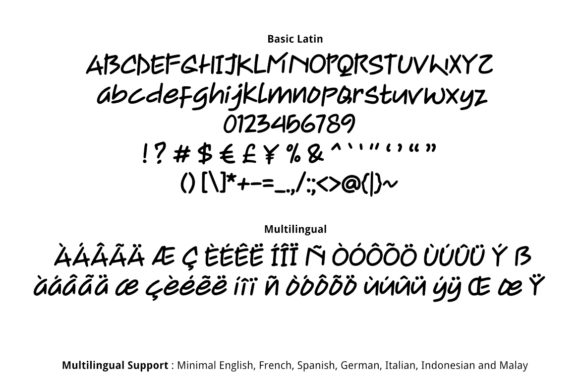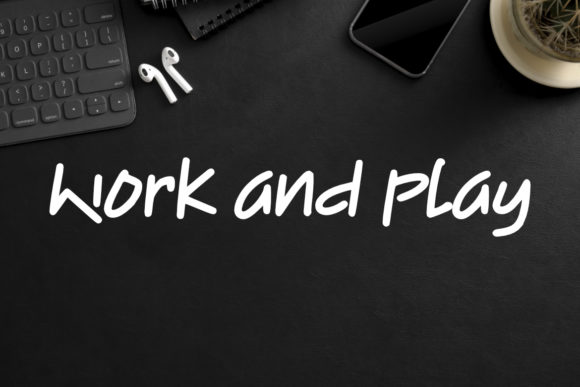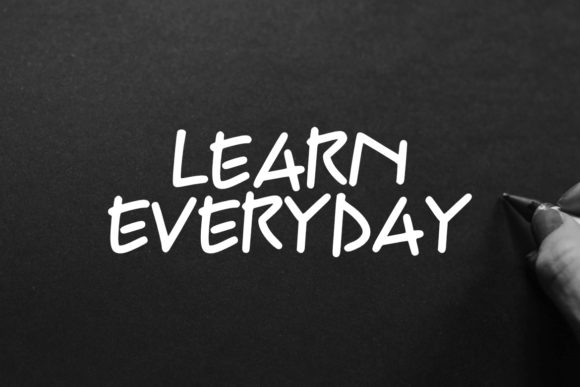
Introduction to Pendulum Font
As a designer, there’s nothing quite like the thrill of stumbling upon the perfect font for a creative project. You’re browsing through a design resource, searching for that one special something to elevate your idea, when suddenly – you see it. The Pendulum Font catches your eye, its thick, handwritten letters radiating a sense of childlike wonder and charm. You can almost imagine it gracing the cover of a children’s book or a whimsical school project.
But what makes the Pendulum Font truly special is its versatility. Whether you’re working on a free download or a high-quality design piece, this font is sure to bring a touch of magic to your work. With its transparent background and lovable aesthetic, it’s the perfect addition to any design project.
Pendulum Font
- Unique blend of modern and vintage elements, ideal for creative projects
- High-quality font with a transparent background, perfect for designers seeking a design resource
- Large character set with over 1000 glyphs, suitable for a wide range of creative applications
- High-resolution design, scalable up to 1024px, ensuring crisp and clear typography
Honest Review: Pendulum Font
I recently stumbled upon the Pendulum Font and was excited to dive in and explore its features. As a designer, I’m always on the lookout for high-quality design resources to elevate my creative projects. Fortunately, Pendulum Font delivers.
Here are some of the things that work well: ✨
- High-quality design: The font is crisp and clean, making it perfect for a variety of design applications.
- Transparent background: The font’s transparent background makes it easy to use in creative projects that require a lot of layering and manipulation.
- Limited character set: While the font is high-quality, it’s not a full character set, which may limit its use in certain design applications.
- Lack of customization options: As a free font, Pendulum Font doesn’t offer a lot of customization options, which may be a drawback for some designers.
Overall, I’m impressed with Pendulum Font and would definitely recommend it to designers looking for a high-quality, free design resource. Just be aware of the limitations, and you’ll be all set to create some amazing designs!
Pendulum Font
The Pendulum Font is a unique and versatile design resource ideal for creative projects. It’s available for free download and features a transparent background, making it perfect for various applications.
Tips for Getting the Most Out of Pendulum Font
– Experiment with different font sizes and styles to create a unique look.
– Combine the Pendulum Font with other design elements for a cohesive design.
– Use the transparent background to add a touch of elegance to your project.
– Wedding invitations
– Event flyers
– Business logos
Pendulum Font Alternatives
The Great Vibes Font is a beautiful, high-quality font ideal for creative projects, especially those that require a carefree and laid-back vibe. It’s perfect for use in headings and titles to add a touch of elegance and sophistication. When to use: Creative project, design resource, and high-quality font needed. How it compares to Pendulum Font: Great Vibes Font has a more elegant and refined look compared to the bold and playful Pendulum Font.
The Dancing Script Font is a lovely, handwritten font that’s perfect for use in invitations, greeting cards, and other creative projects that require a personal touch. It has a transparent background, making it ideal for use on a white or light-colored background. When to use: Design resource for personal projects, free download needed, and a high-quality font with a transparent background required. How it compares to Pendulum Font: Dancing Script Font has a more delicate and feminine look compared to the bold and playful Pendulum Font.
The Alex Brush Font is a high-quality, elegant font that’s perfect for use in headings, titles, and other design elements that require a touch of sophistication. It’s a great alternative to Pendulum Font for those who need a more refined and polished look. When to use: Creative project, design resource, and high-quality font needed. How it compares to Pendulum Font: Alex Brush Font has a more refined and elegant look compared to the bold and playful Pendulum Font.
Q: Is the Pendulum Font suitable for high-resolution designs?
Yes, the Pendulum Font is designed to be highly scalable and suitable for use in high-resolution designs. The font’s high-quality design ensures that it will look great even at large sizes and in high-resolution formats, making it an ideal choice for creative projects that require a premium look and feel.